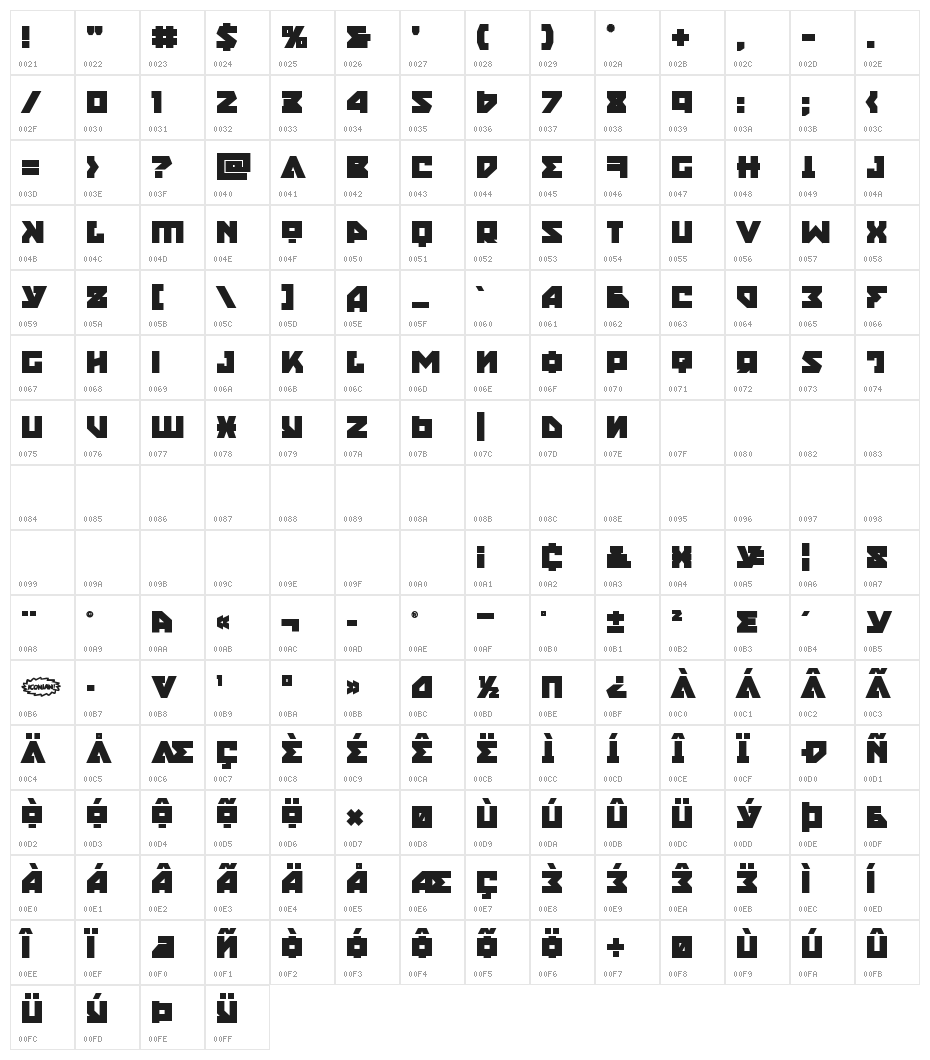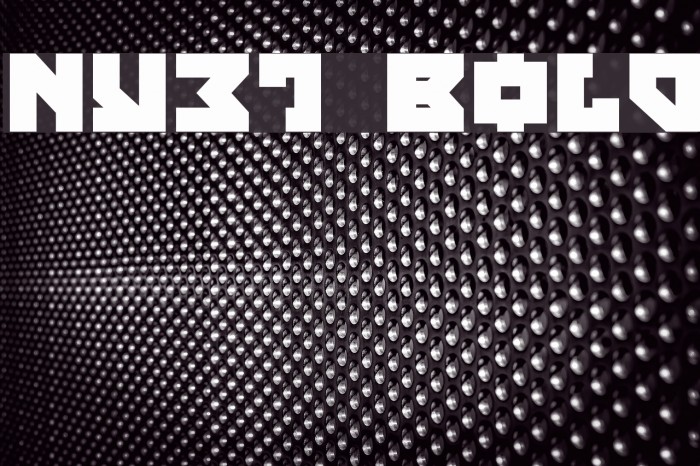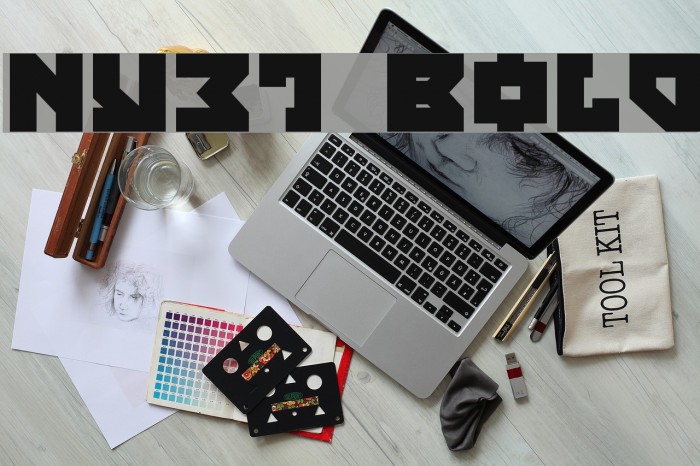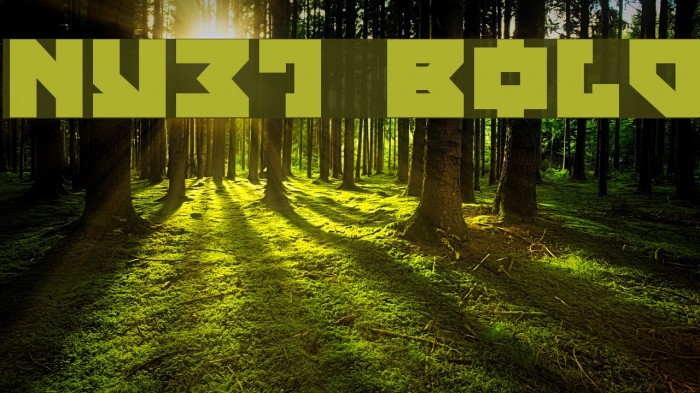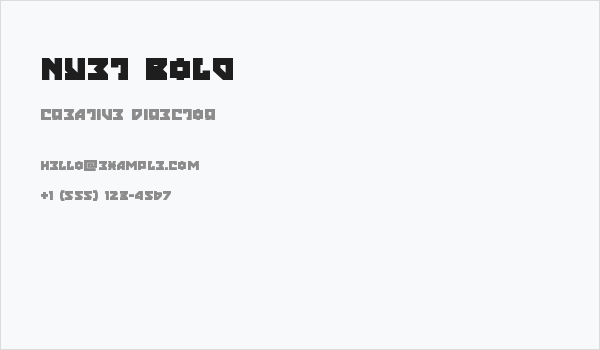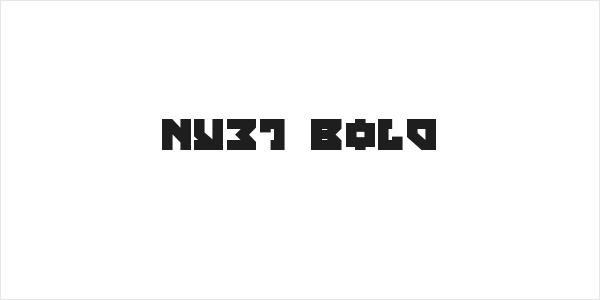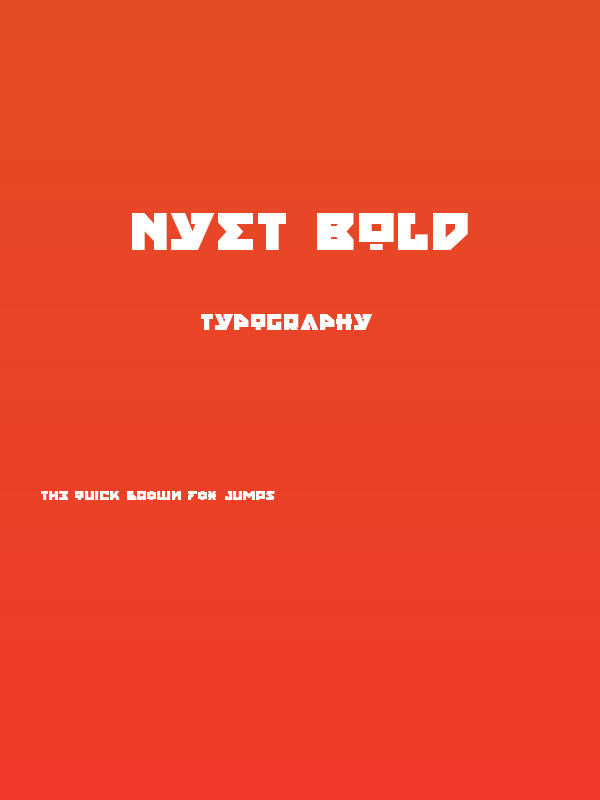
Nyet Bold Font
Nyet Bold Description
This font features a bold and geometric design with sharp angles and a blocky structure. Each character is constructed with a consistent thickness, giving it a strong and impactful appearance. The uppercase and lowercase letters maintain a uniform style, while the numerals and special characters complement the overall aesthetic. The font's design is reminiscent of industrial or futuristic themes, making it suitable for projects that require a modern and assertive look. Its distinct style ensures high readability and visual interest, making it ideal for attention-grabbing headlines or branding materials.
Proposed ProjectsPerfect for branding, posters, headlines, and any project needing a strong, modern aesthetic.